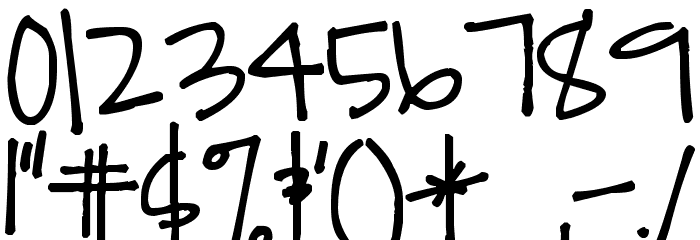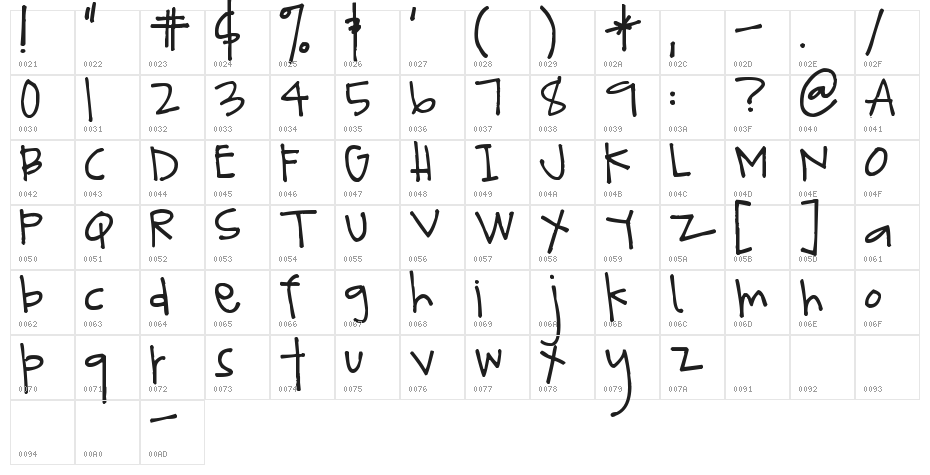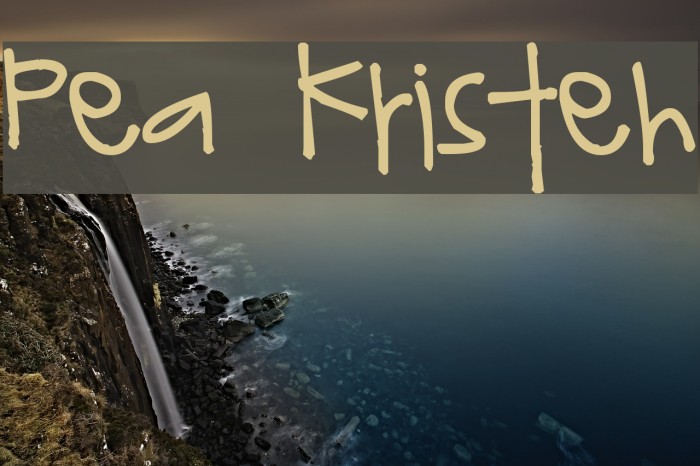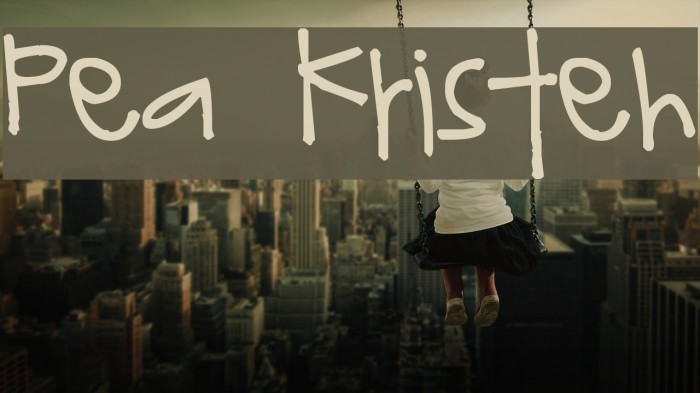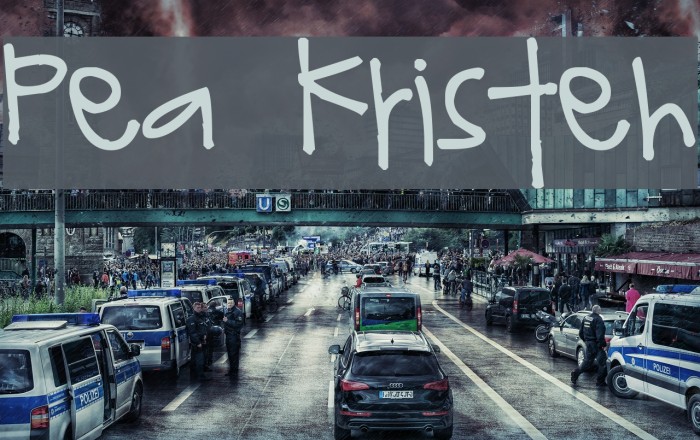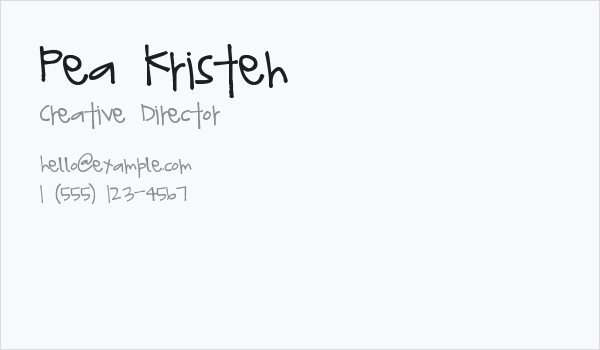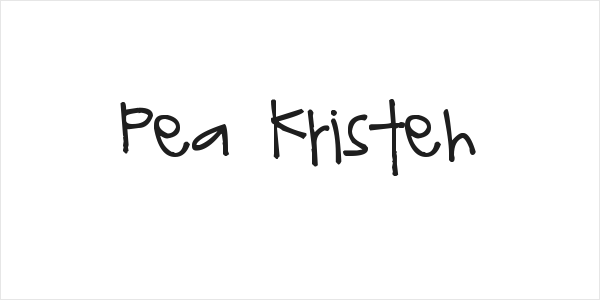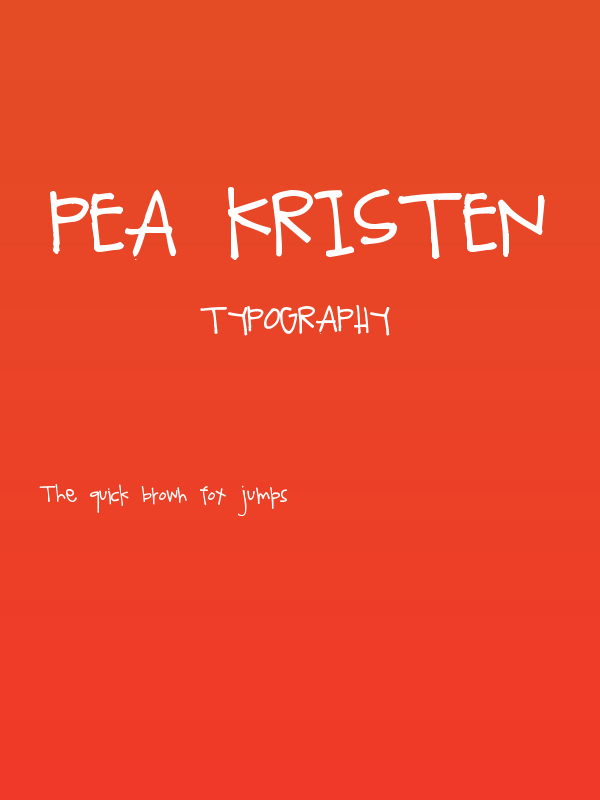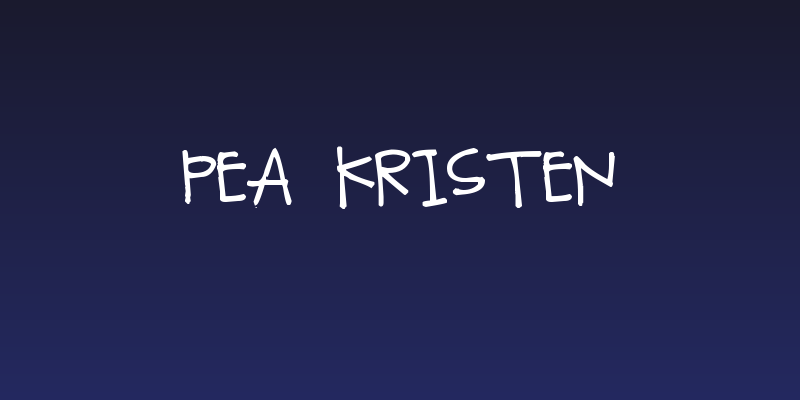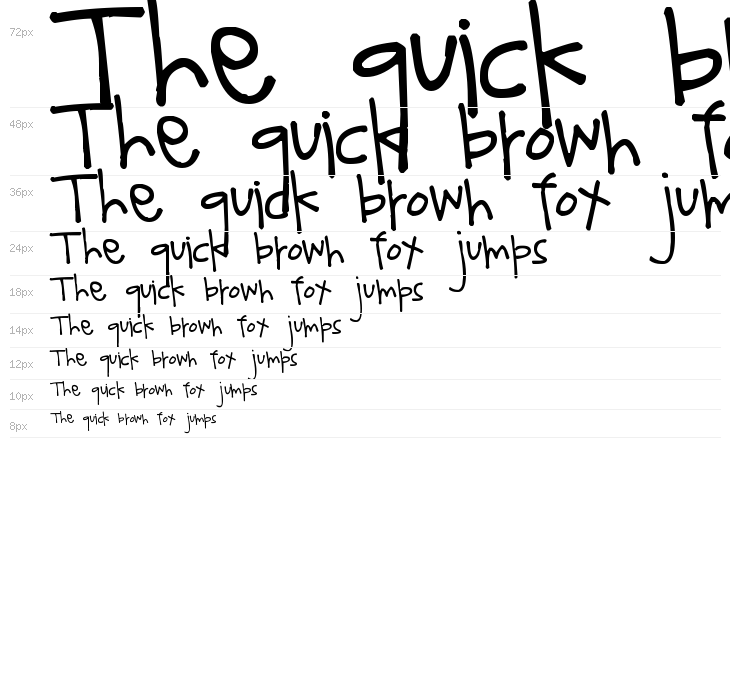
Pea Kristen Font
Pea Kristen Description
This font exudes a playful and casual handwritten style, characterized by its uneven strokes and slightly irregular letterforms. The letters have a natural flow, reminiscent of a personal note or a casual journal entry. The uppercase and lowercase letters maintain a consistent style, with a slight tilt and varying line thickness that adds to its informal charm. The numbers and special characters follow the same aesthetic, ensuring a cohesive look across all glyphs. This font is perfect for projects that require a personal touch, such as greeting cards, invitations, or informal branding materials.
| Proposed Projects | Ideal for greeting cards, personal notes, informal branding, and creative projects. |